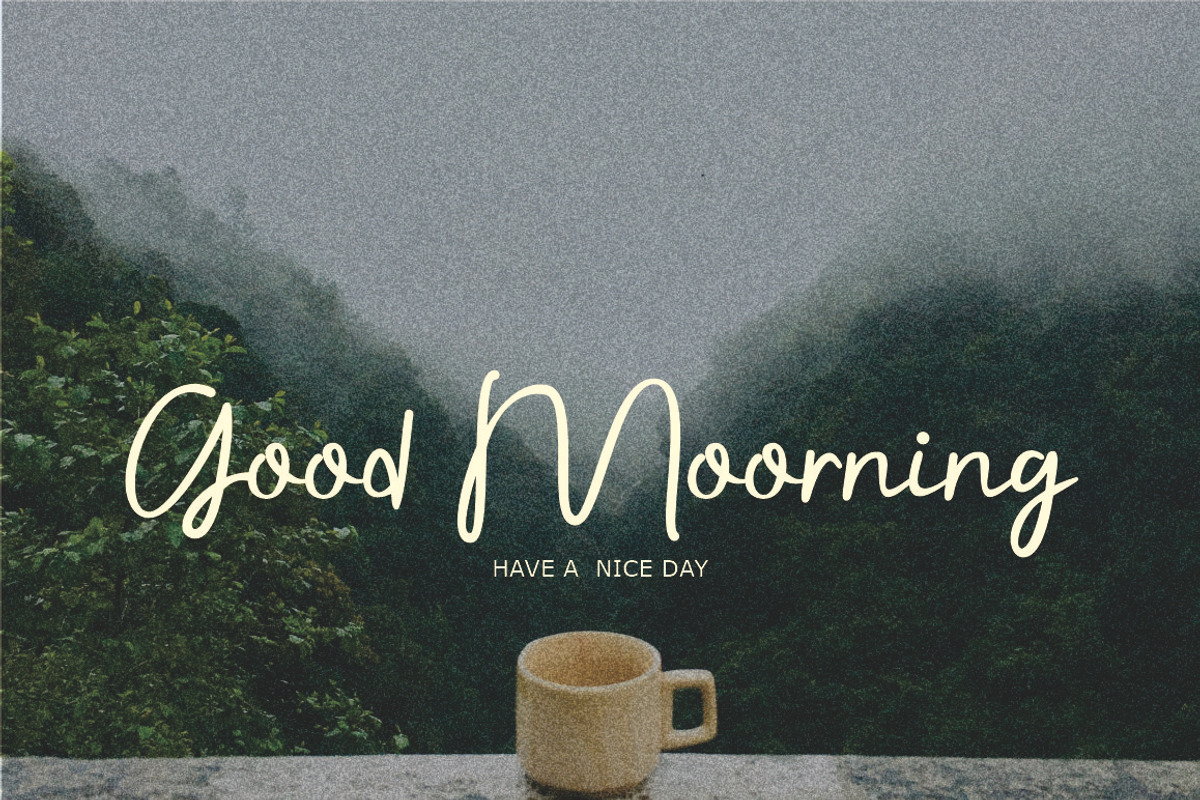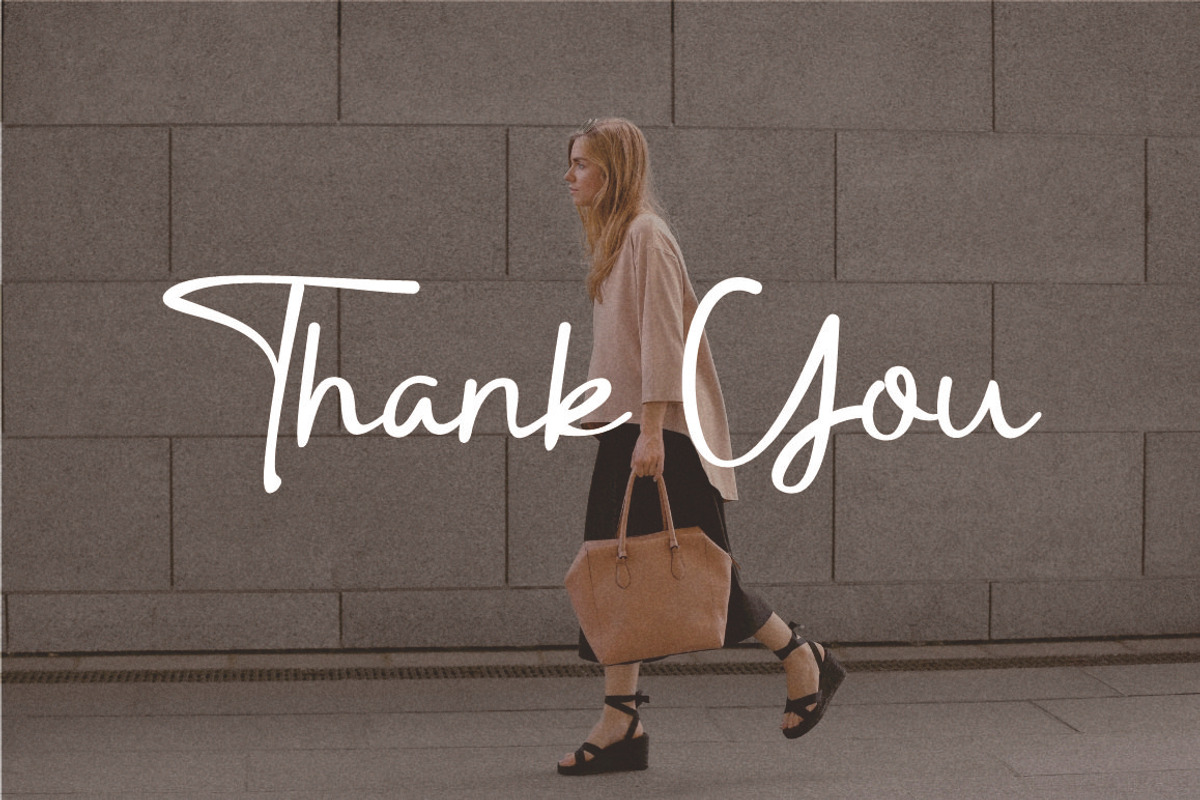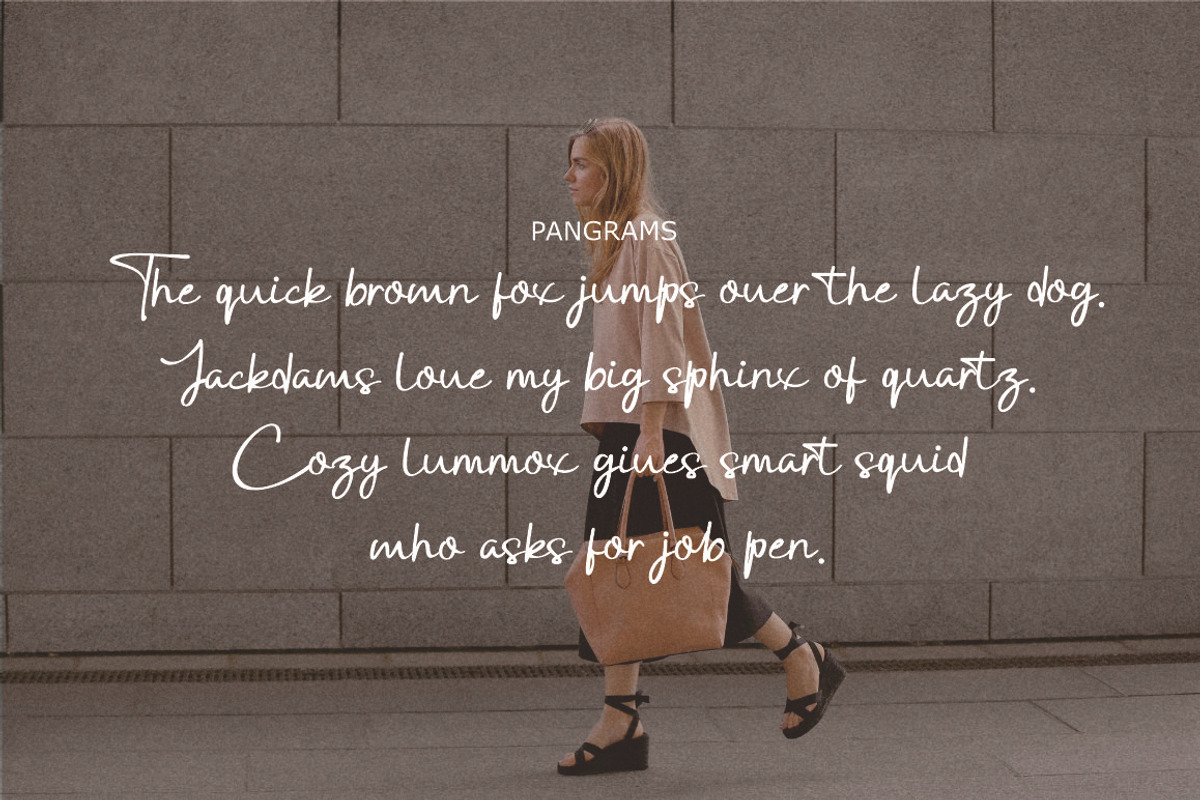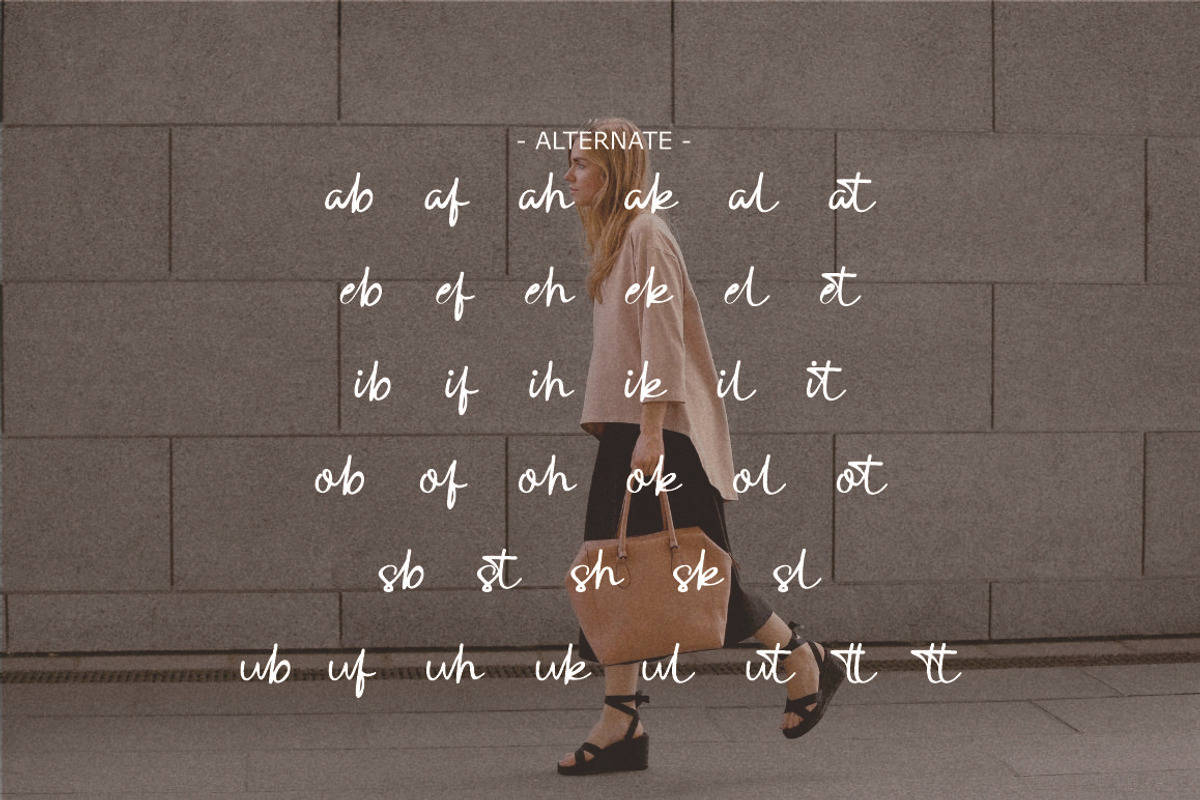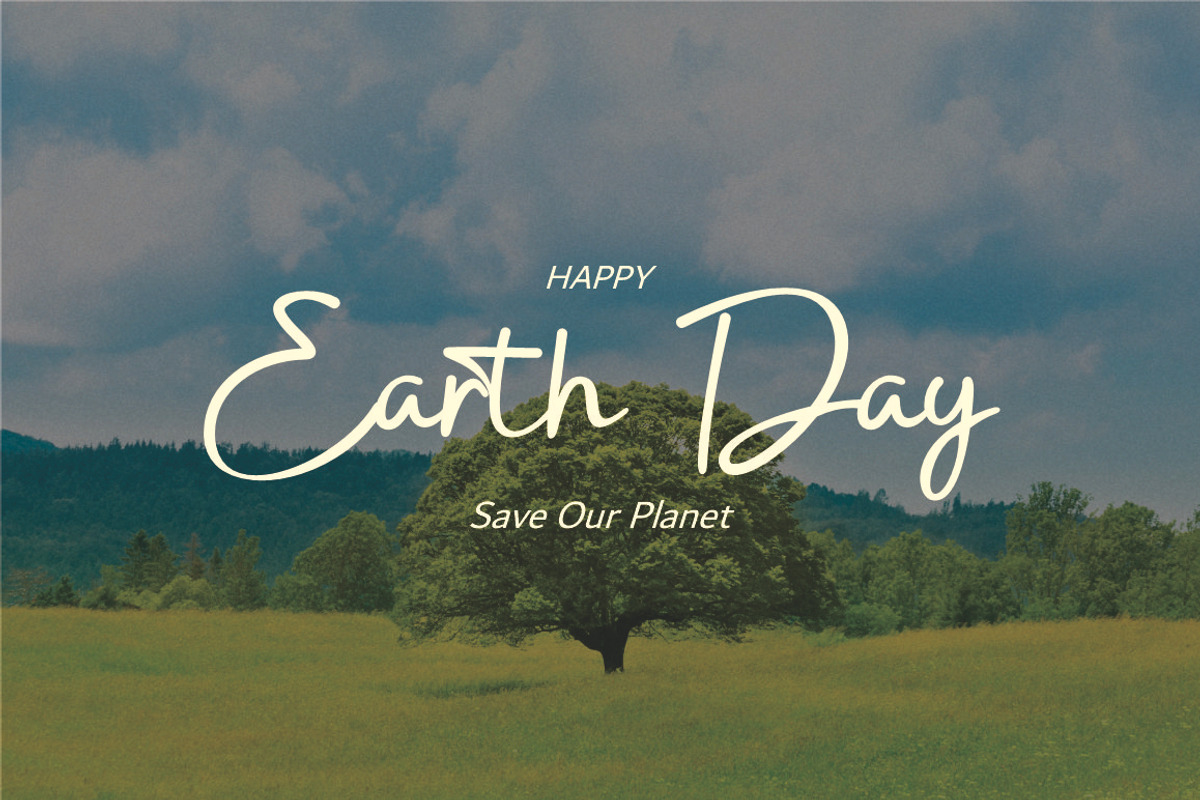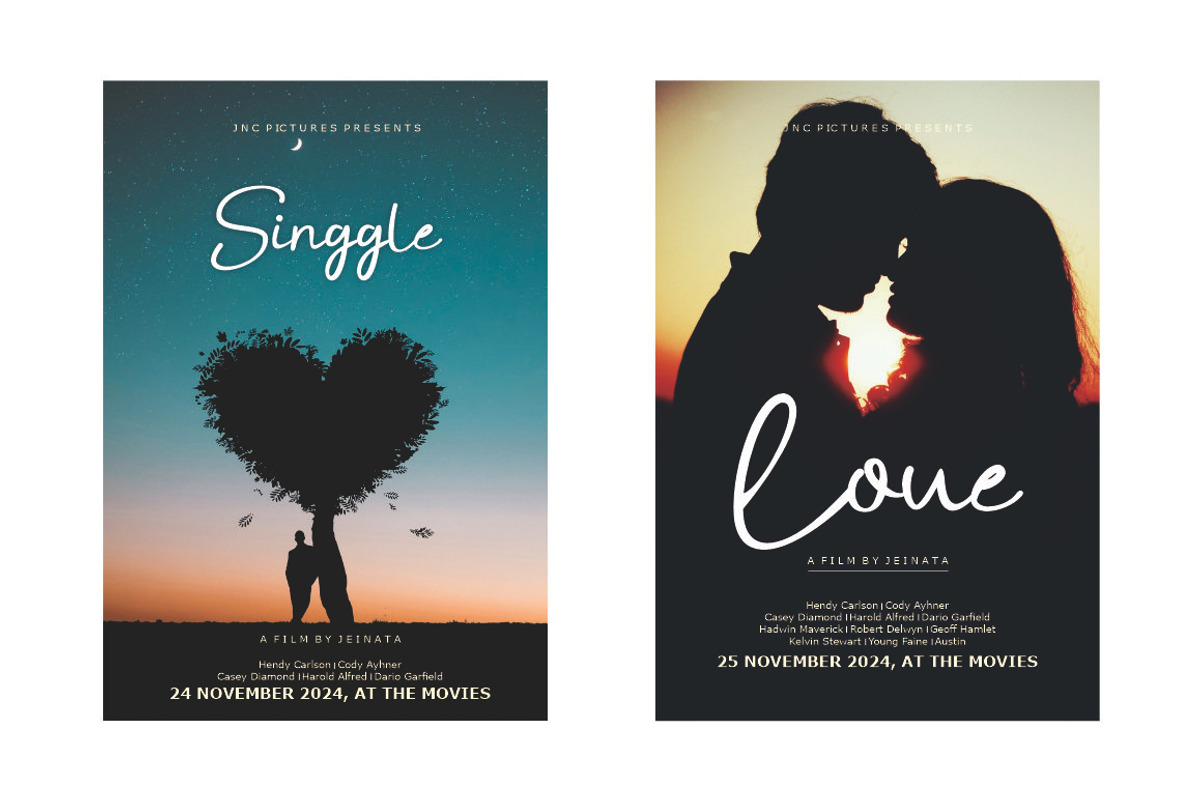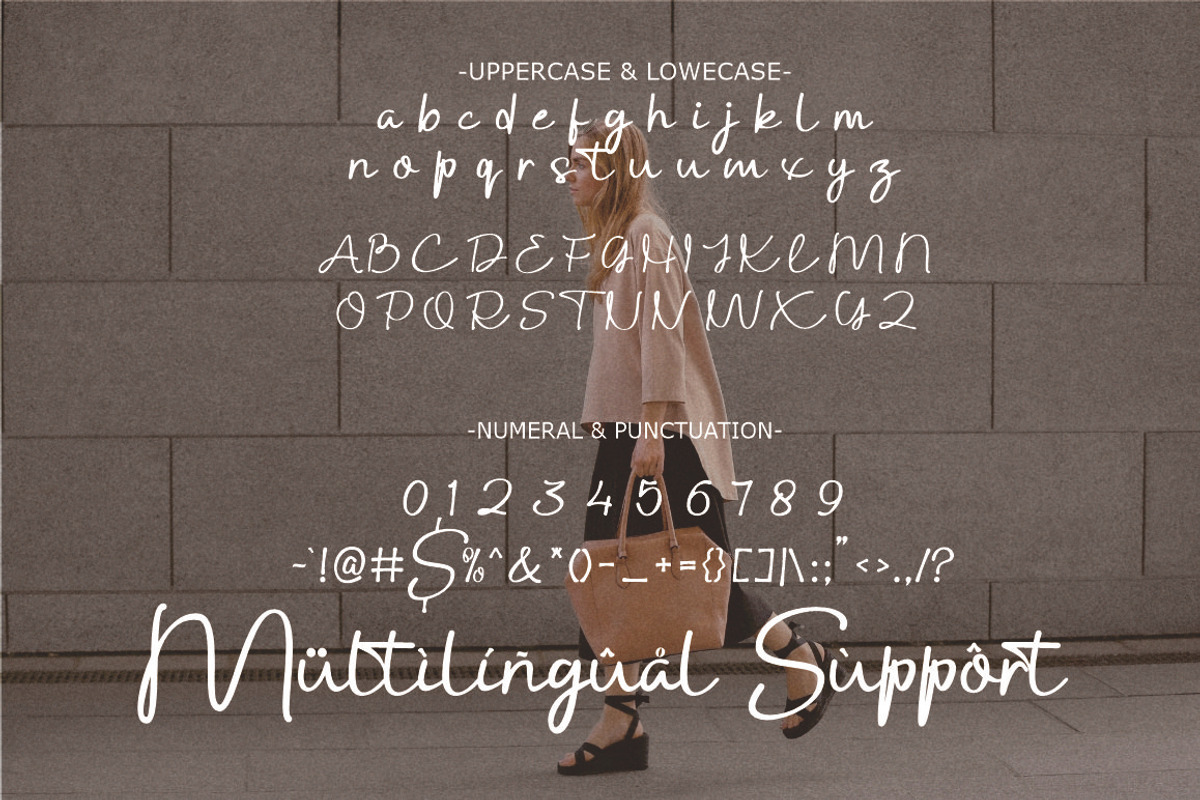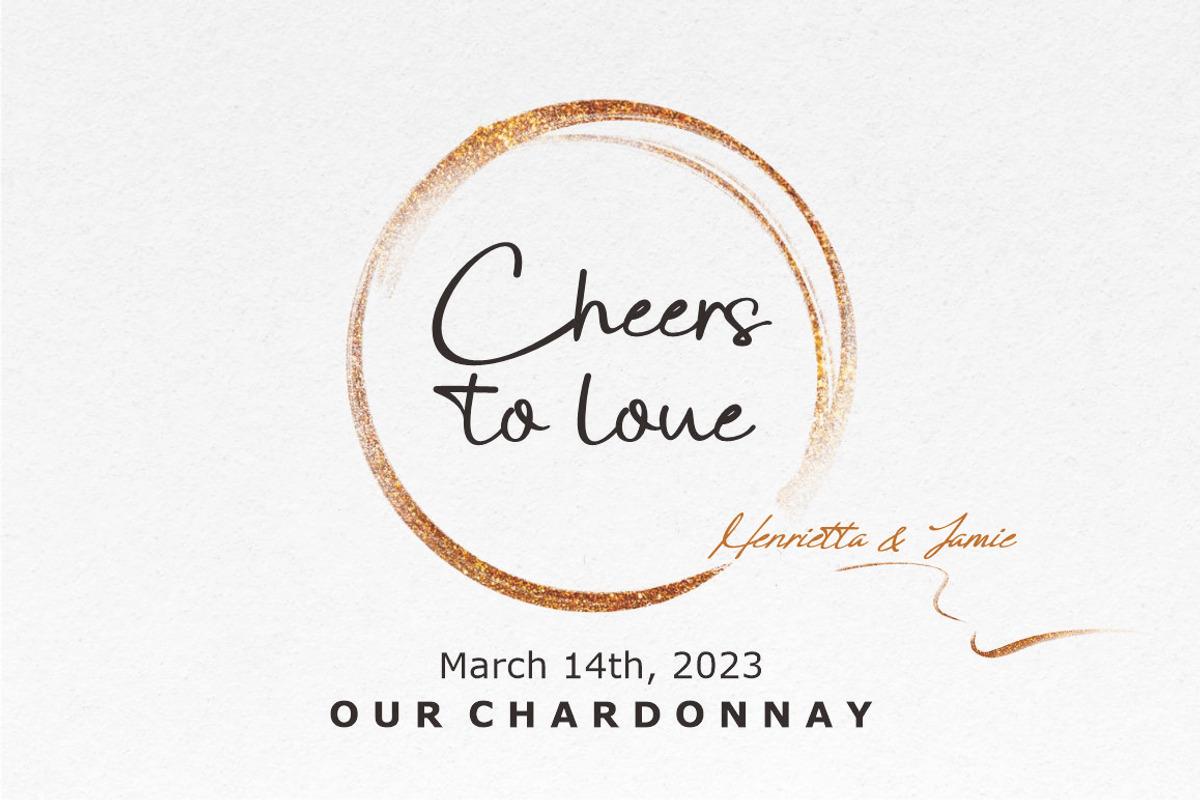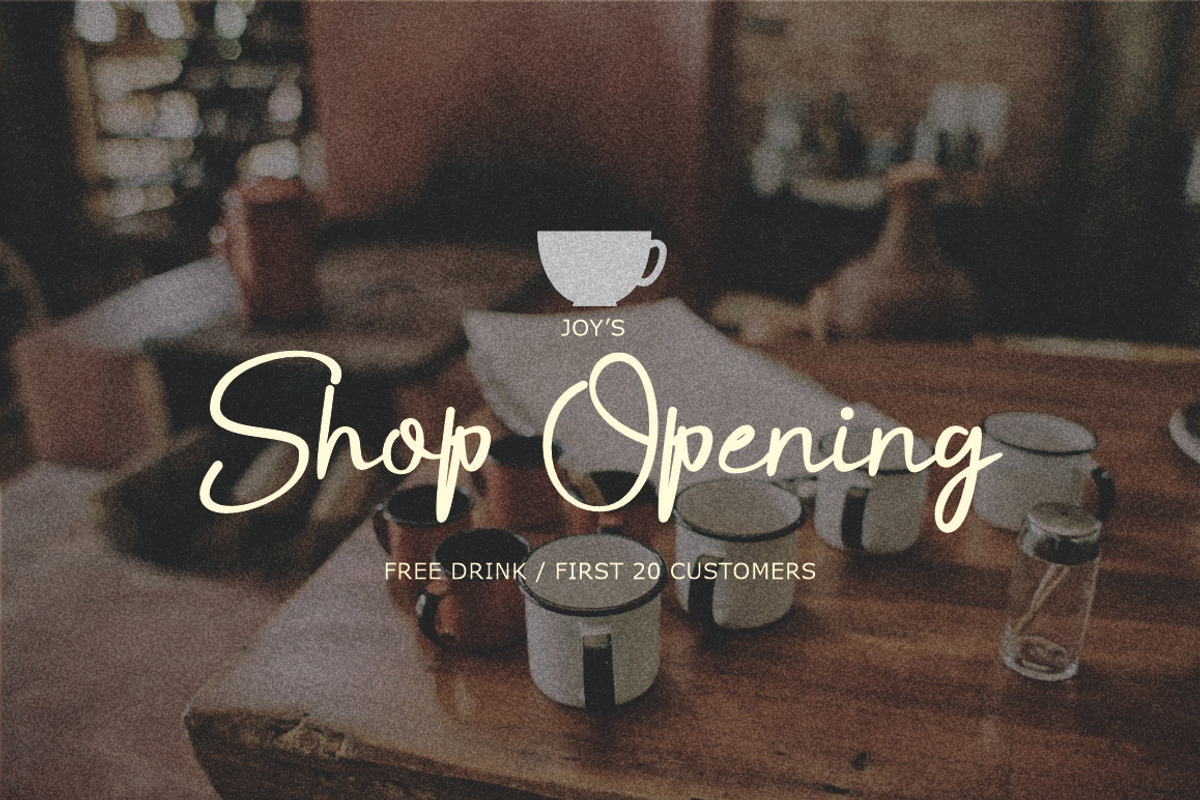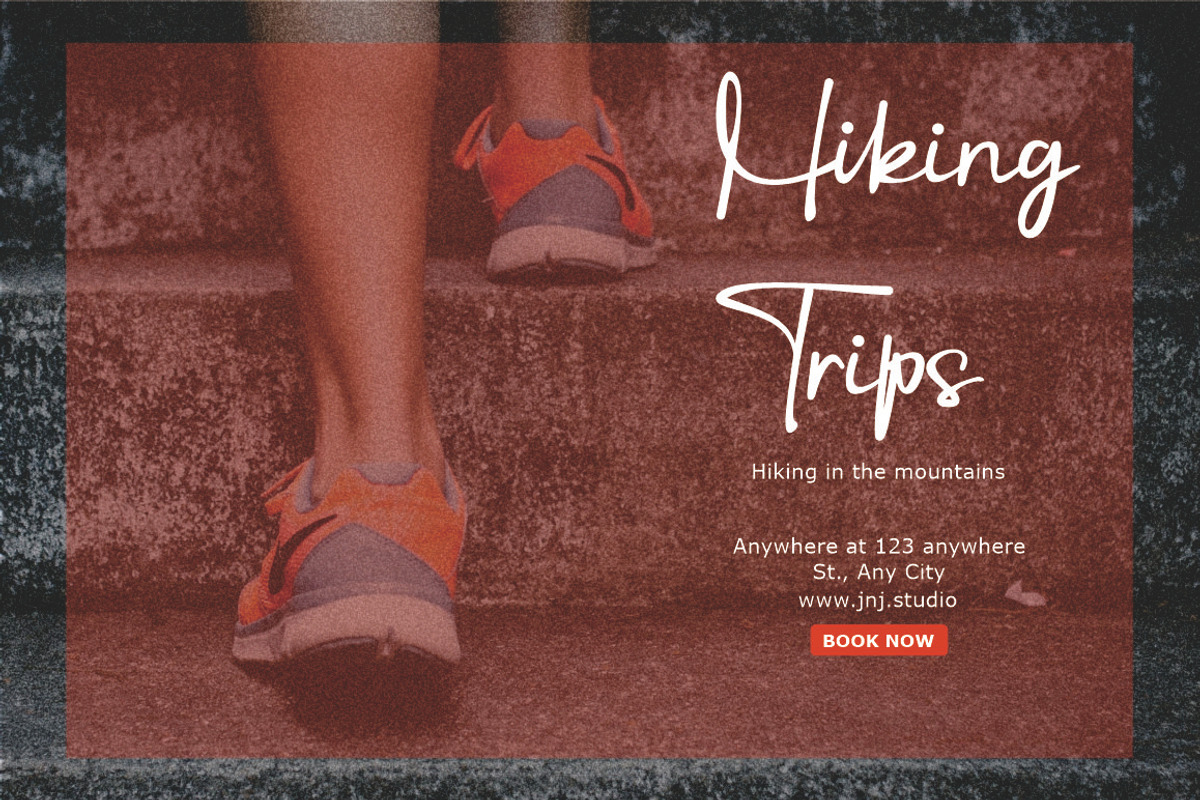
Ditaqish Signature
Introducing "Ditaqish Signature" is an elegant and sophisticated signature-style font, perfect for adding a touch of personality and class to your designs. With its smooth, flowing strokes and carefully crafted ligatures, this font captures the essence of handwritten artistry.
Designed to evoke a sense of authenticity and charm, Ditaqish Signature is ideal for creating logos, branding materials, wedding invitations, social media posts, and any project that calls for a luxurious and stylish feel. Its versatility makes it equally suited for both modern and timeless aesthetics.
Let Ditaqish Signature elevate your designs with its graceful and artistic flair, making every word feel personal and unique.